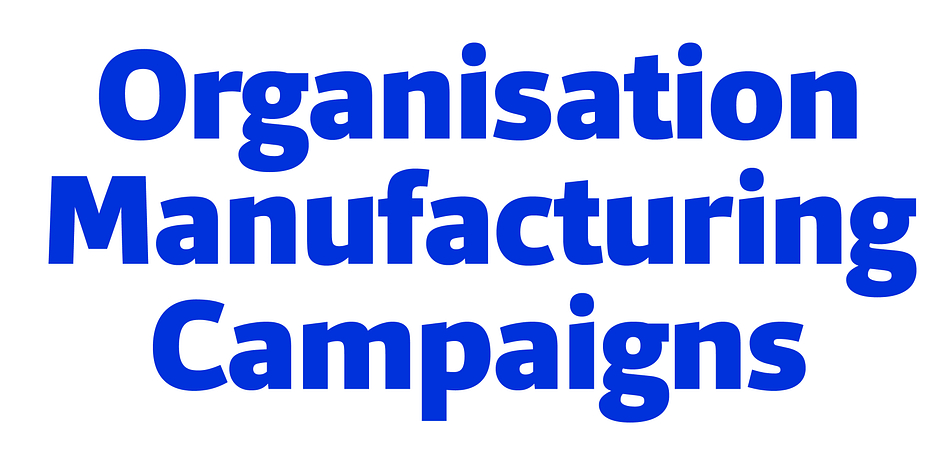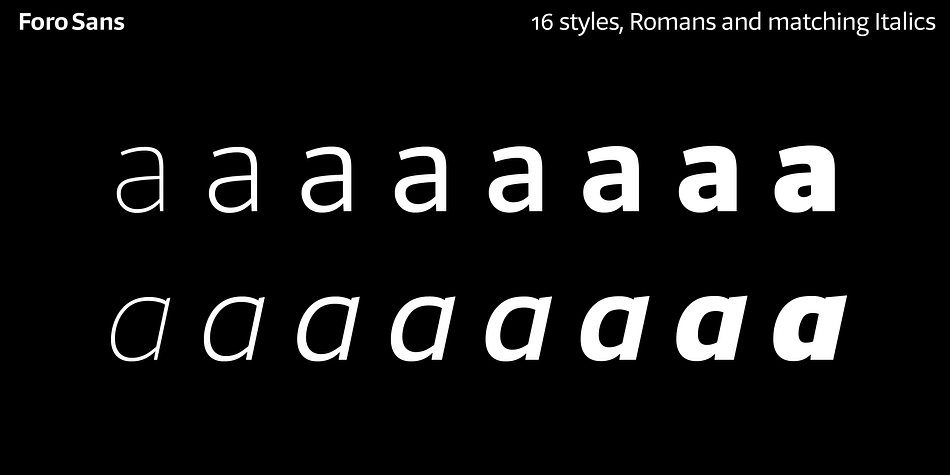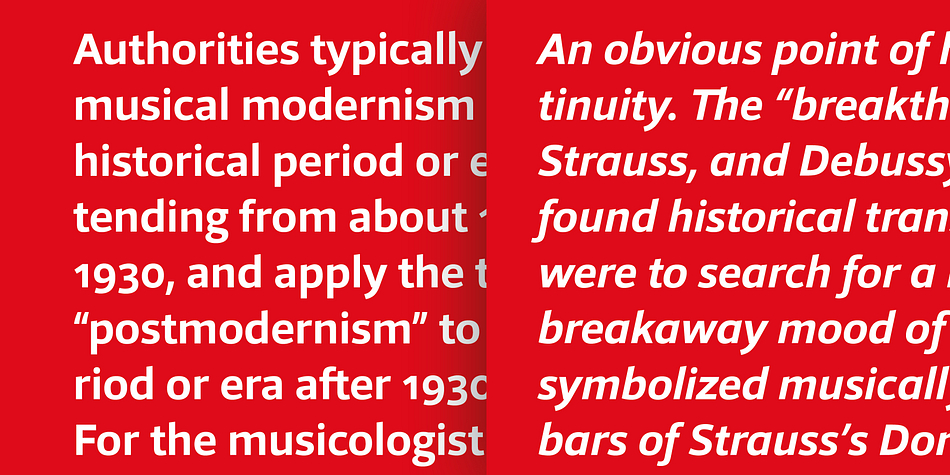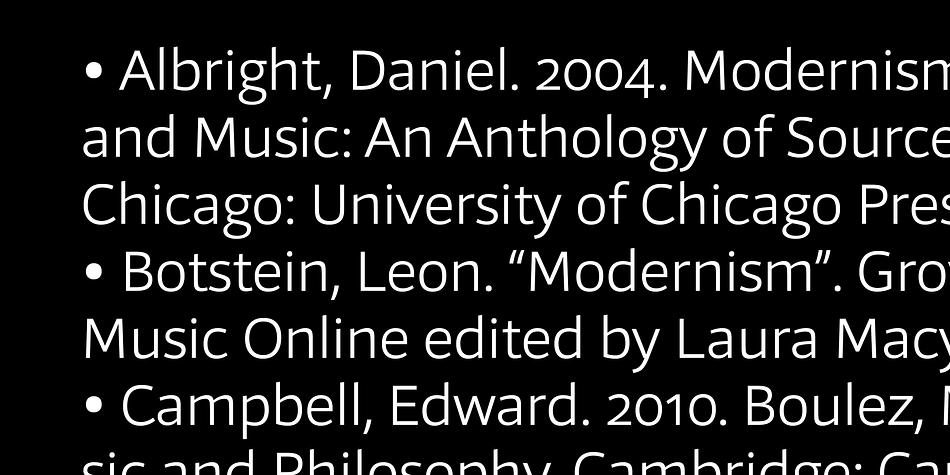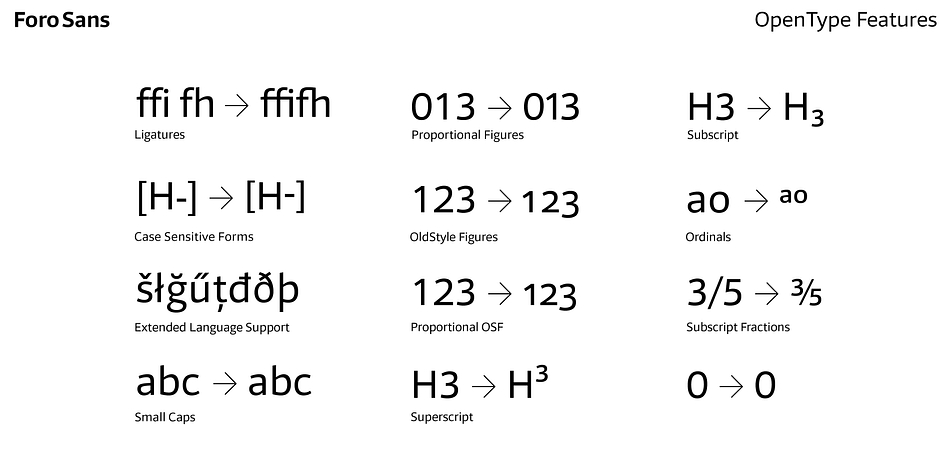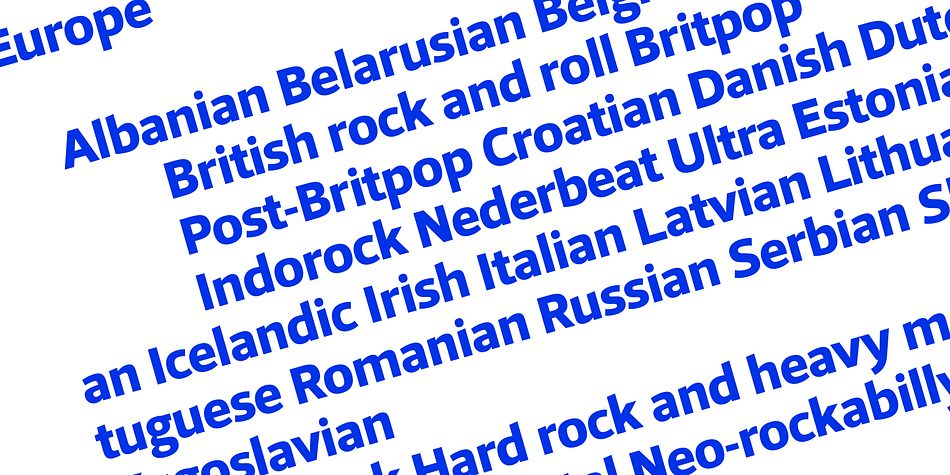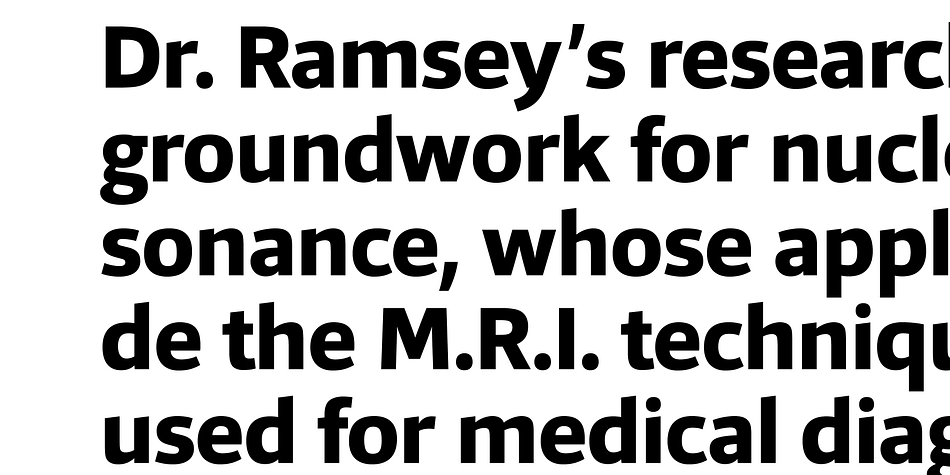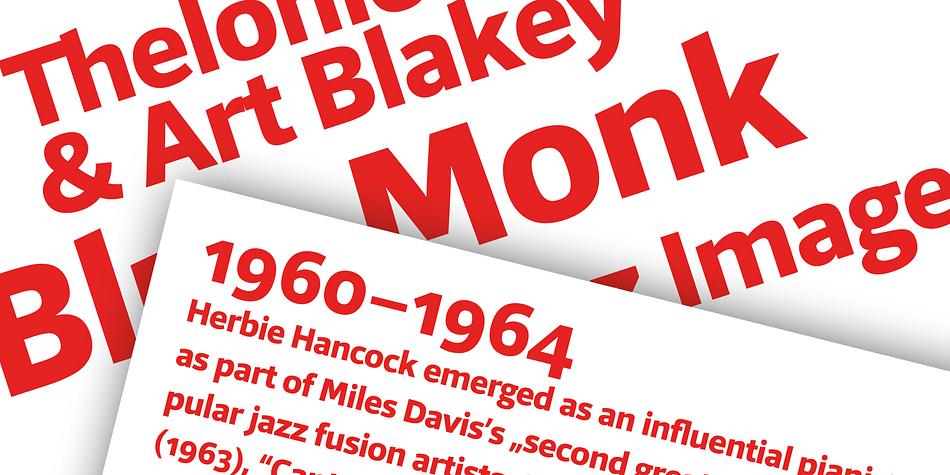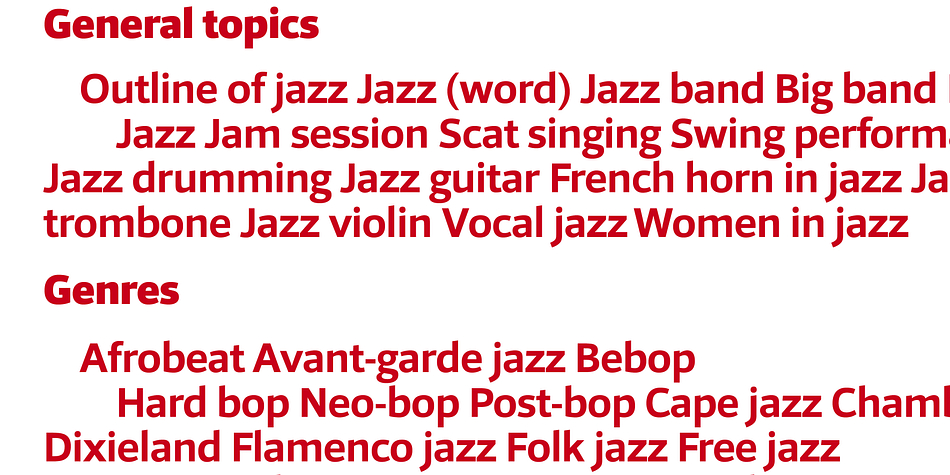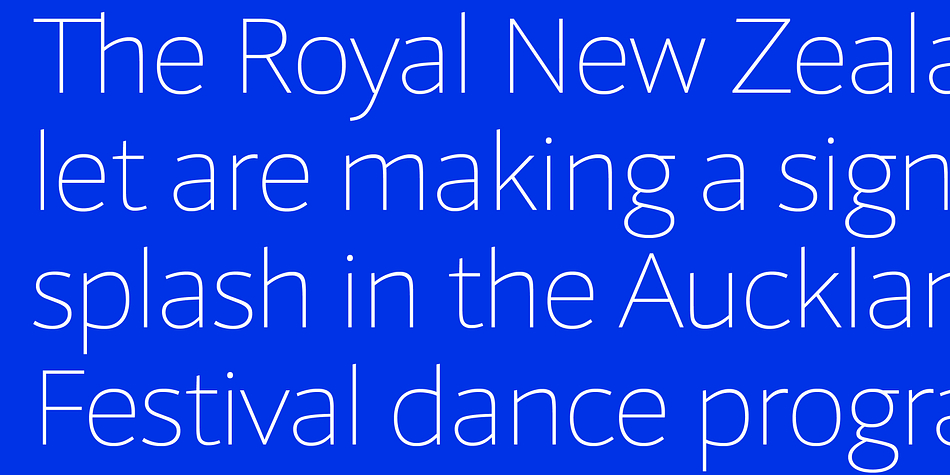
Foro Sans is a sans serif font family. This typeface has sixteen styles and was published by Hoftype.
Foro Sans is the matching friend of the popular Foro family. It comes with the same number of styles and the form displays the same characteristic features.
Foro Sans consists of 16 styles and is well suited for ambitious typography. It comes in OpenType format with extended language support. All weights contain ligatures, superior characters, proportional lining figures, tabular lining figures, proportional old style figures, lining old style figures, matching currency symbols, fraction- and scientific numerals and matching arrows.